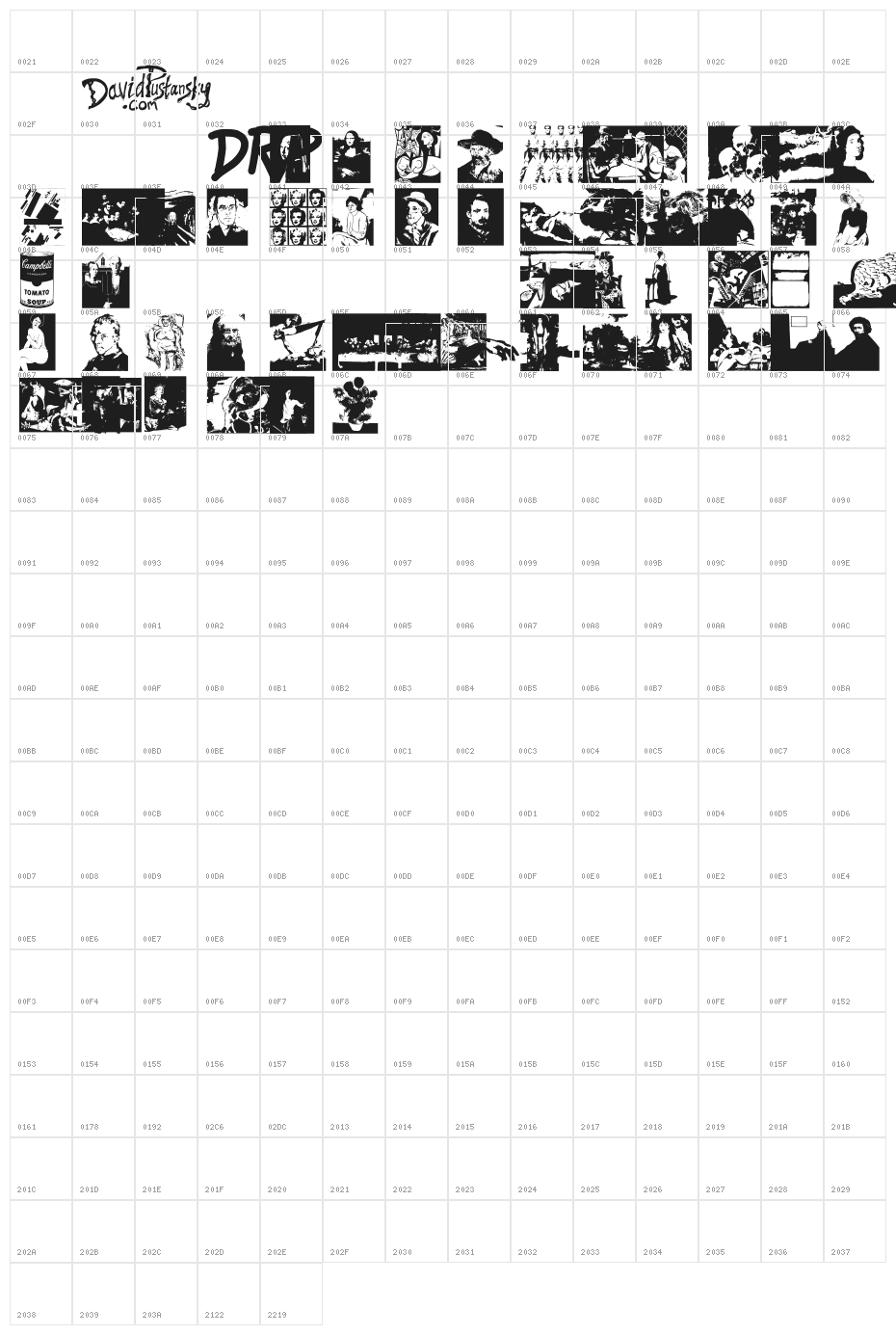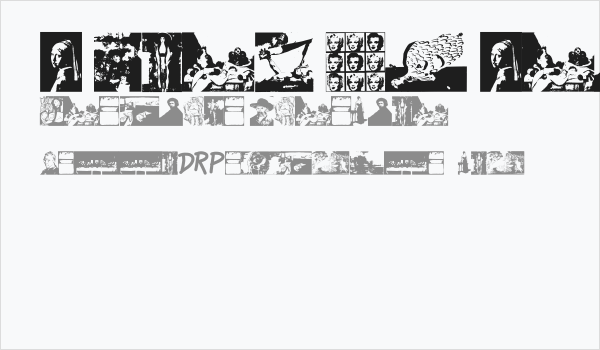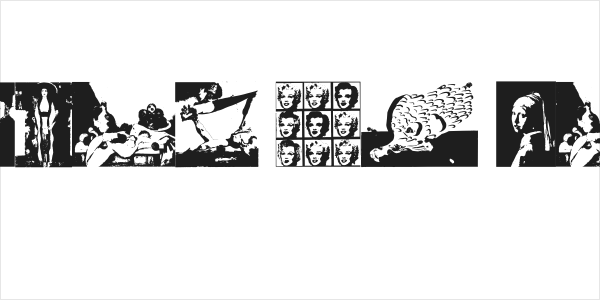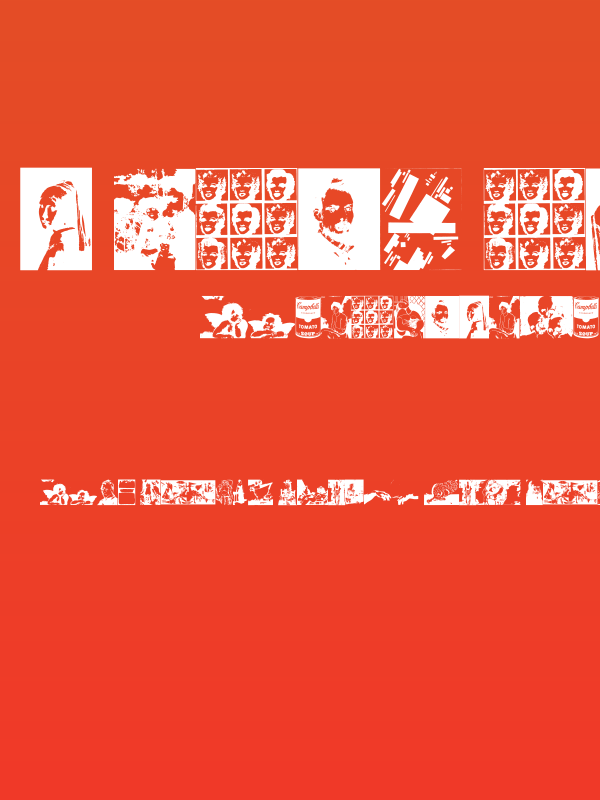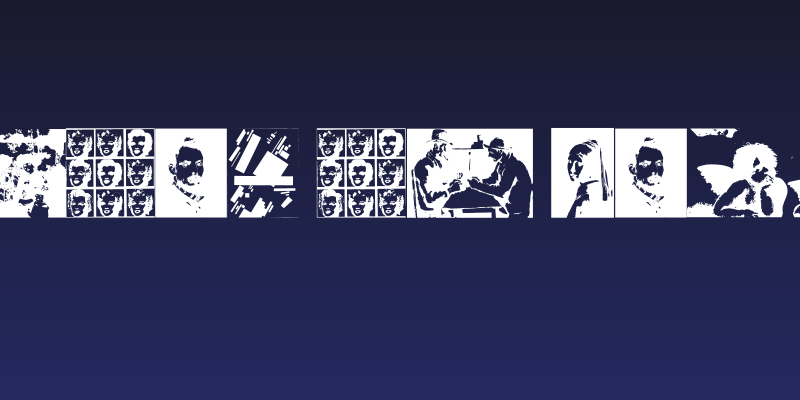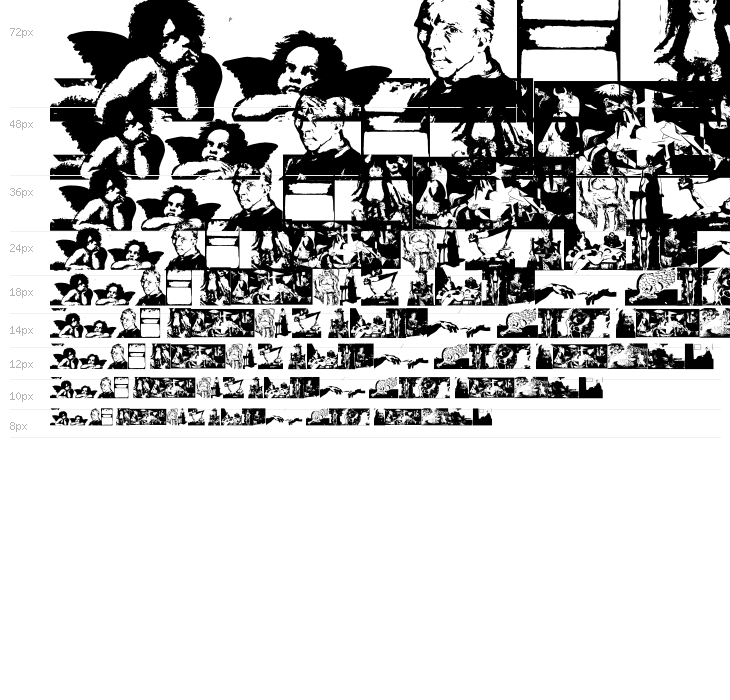
A Work Of Art Font
A Work Of Art Description
A highly decorative display font where each character is composed of detailed black-and-white illustrations referencing famous artworks and artists, creating a collage effect within the letterforms. The characters are rectangular and filled with intricate visual content, making them visually complex and unique.
| Overall Style | Decorative, Artistic, Collage |
| Use Case | Headlines, Posters, Art-related branding, Event titles |
| Proposed Projects | Art exhibitions, gallery posters, creative branding, educational materials about art history, event invitations, and decorative headlines. |